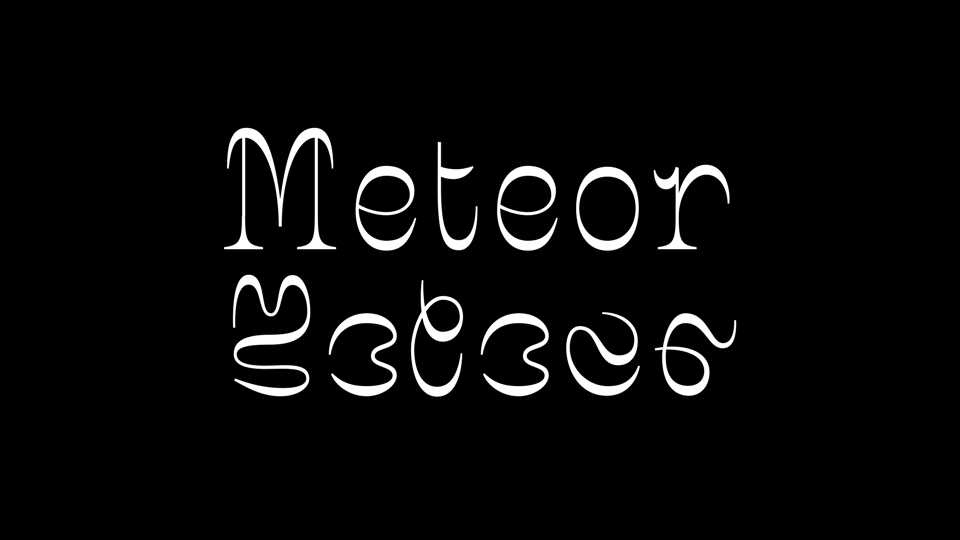
Download Meteor font, a fancy serif typeface drawn in two instances, one readable and one abstract. The dosage and balance of these versions can vary, thus influencing the understanding of the text to the point of making it a foreign and opaque matter.
Designer: Marie Deloffre